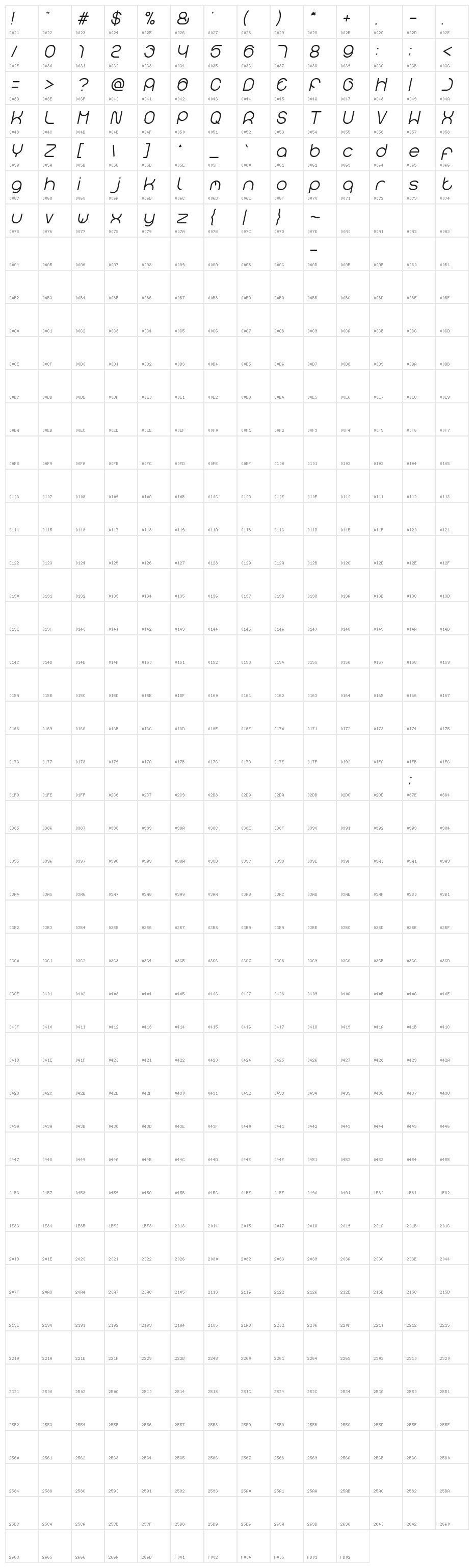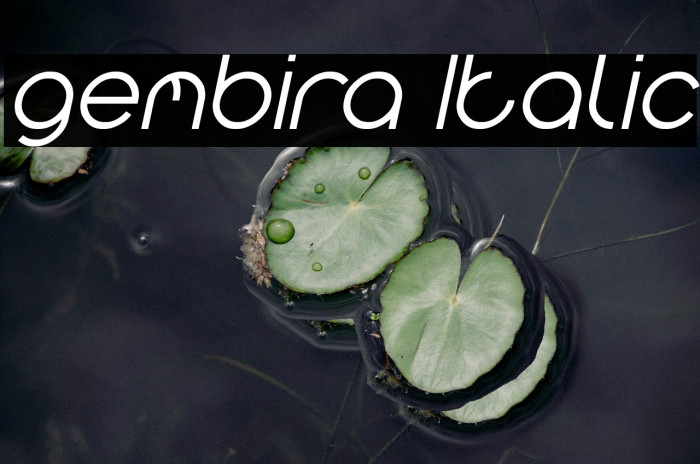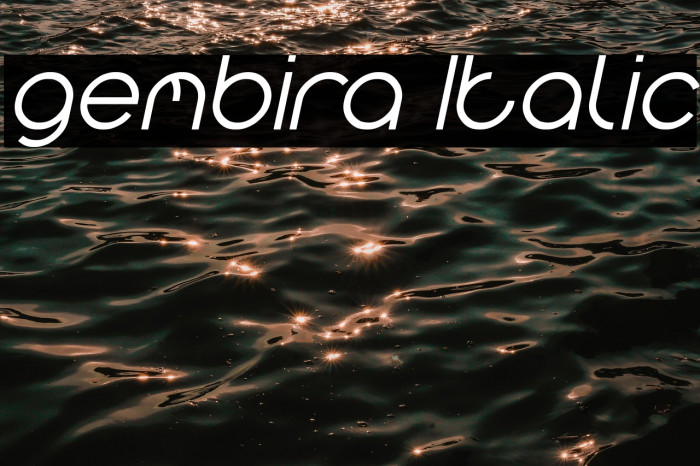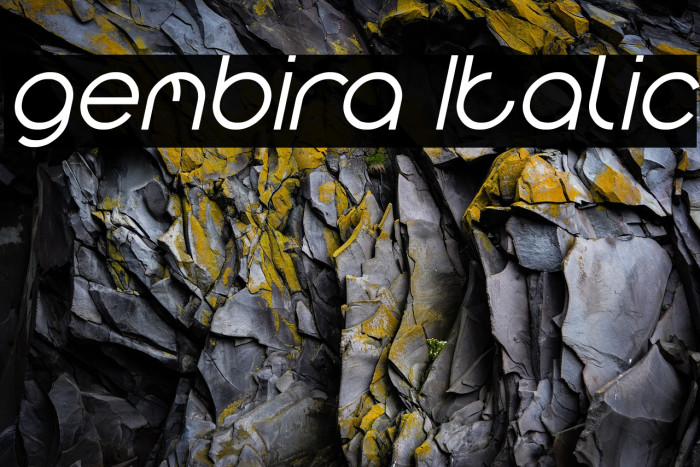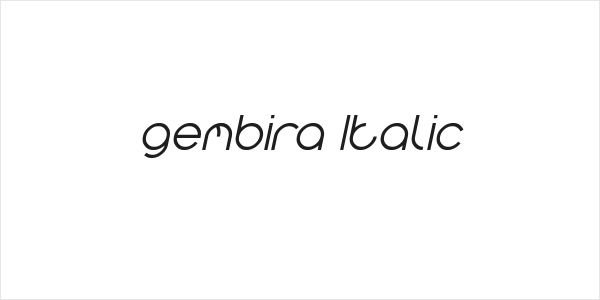
gembira Italic Font
gembira Italic Description
This font features a sleek and modern design with a distinctive italic slant, giving it a dynamic and forward-moving appearance. The characters are crafted with smooth curves and clean lines, creating a sense of elegance and fluidity. The uppercase and lowercase letters maintain a consistent style, with a slight variation in stroke thickness that adds subtle contrast. The numerals and special characters are designed to complement the alphabet, ensuring readability and aesthetic harmony. Overall, this font exudes a contemporary feel, making it suitable for a variety of design applications.